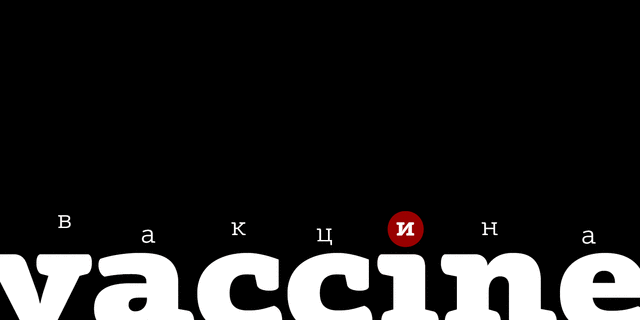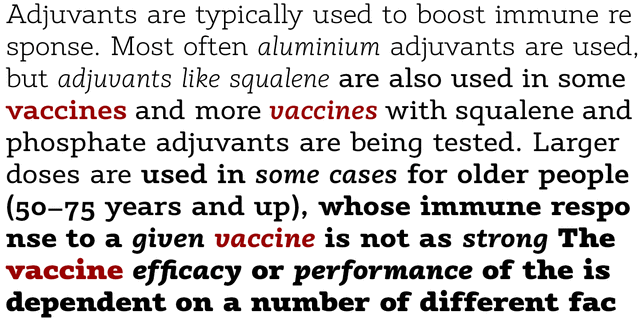
Vaccine (10 fonts)
About VaccineVaccine is a slab serif font family with a mixture of usual and one-sided serifs. We call it "semi semi slab serif". Serifs and terminals have soft rounded shapes, but stem junctions on the contrary use hard constructions. Such combination of basic design features makes the font distinct and strong in setting and delicate and soft in appearance. This design peculiarity, together with low contrast and strong serifs, produces the qualities needed for using the font in small sizes, in low quality print, and in bad reading conditions. Vaccine has got modern stylish design and takes a prominent place in a set of popular faces. The family consists of 10 members — five weights with the corresponding italics. It works well in a wide range of applications — magazines, advertising, corporate identity, urban navigation, packaging, children books, etc. The font was made by Manvel Shmavonyan with the participation of Gayaneh Bagdasaryan. Released by ParaType in 2013.